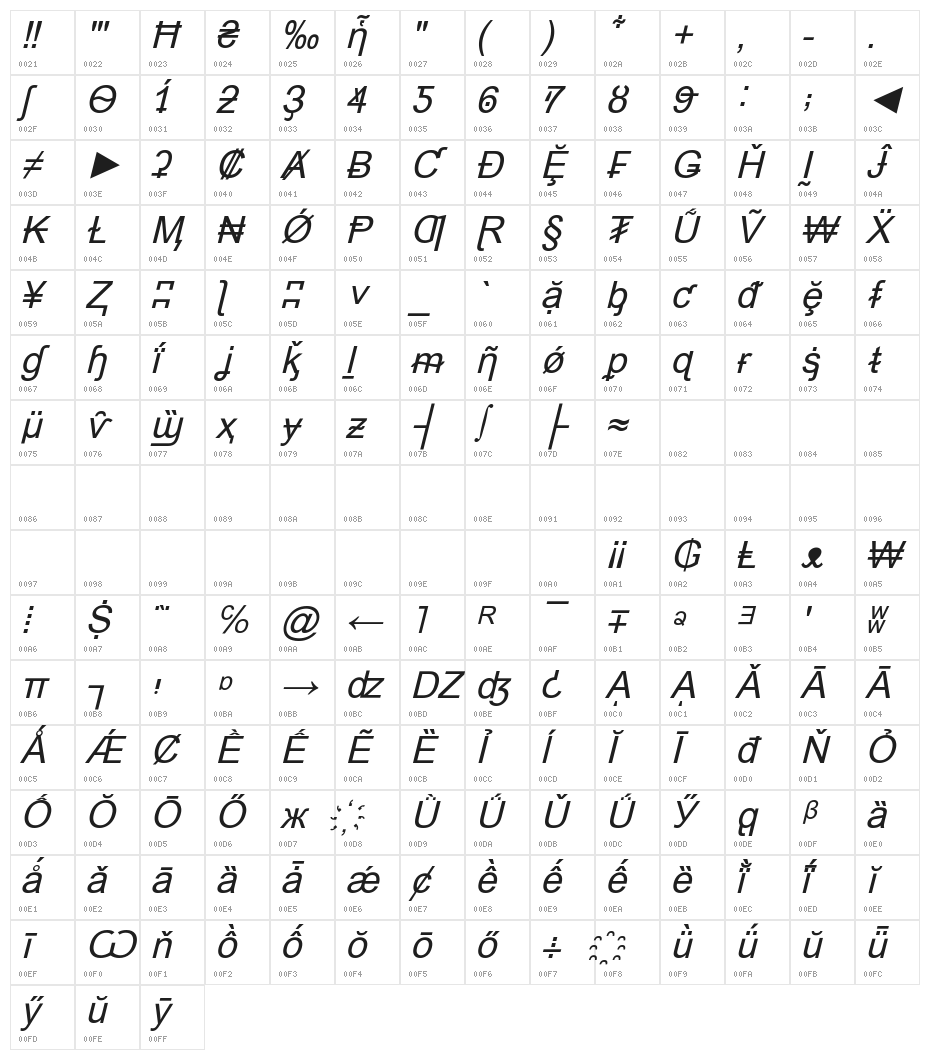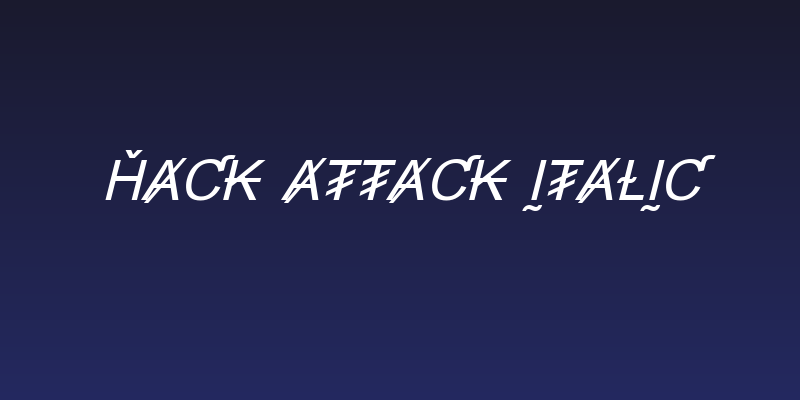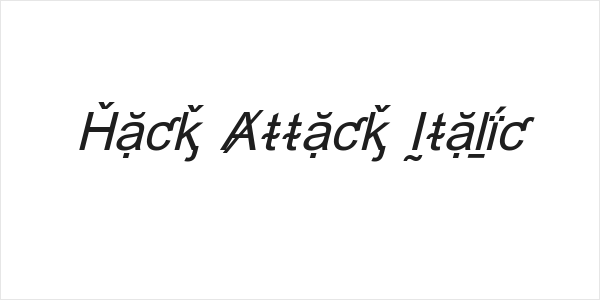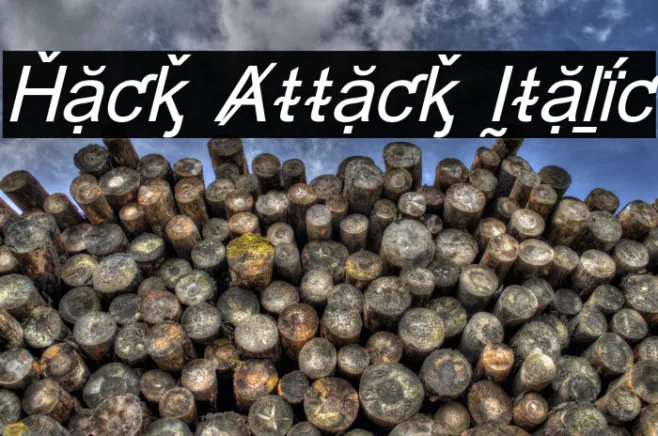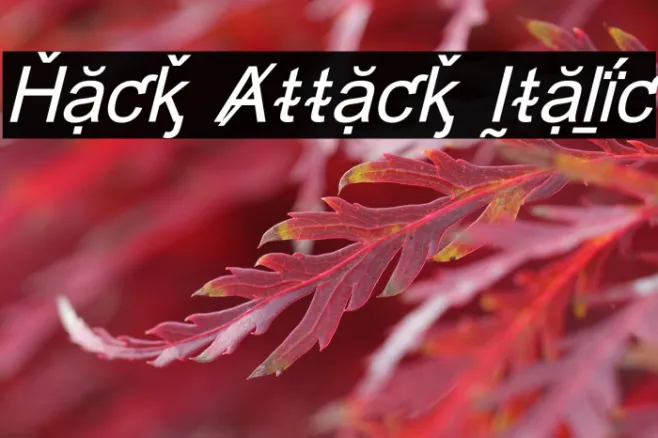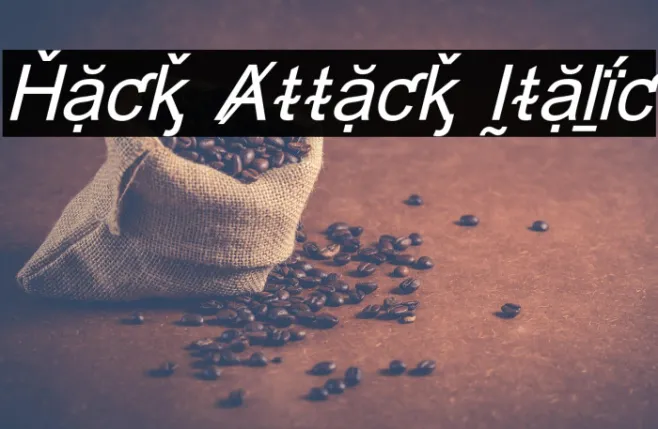
Hack Attack Italic Font
Hack Attack Italic Description
This font features a dynamic and modern italic style, characterized by its slanted and fluid letterforms. The strokes are smooth and consistent, with a slight forward tilt that adds a sense of motion and energy. The characters are well-defined, with a balanced weight that ensures readability while maintaining a stylish appearance. The font includes a comprehensive set of accented characters, making it versatile for multilingual use. Its numerals and special characters are designed to complement the overall aesthetic, providing a cohesive look across different text elements.
| Use Case | Headlines, Logos, Editorial design |
| Proposed Projects | Ideal for branding, advertising, and editorial design projects that require a contemporary and energetic feel. |